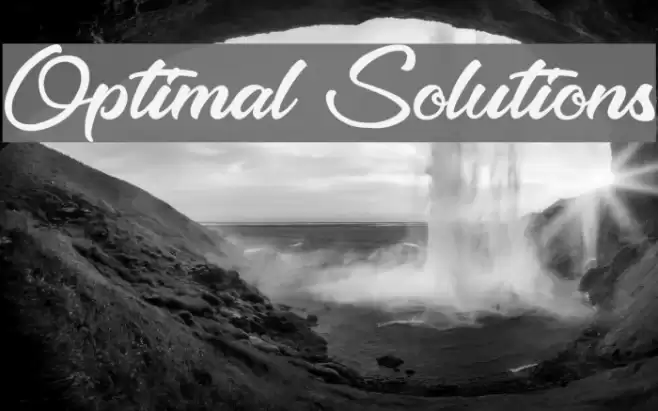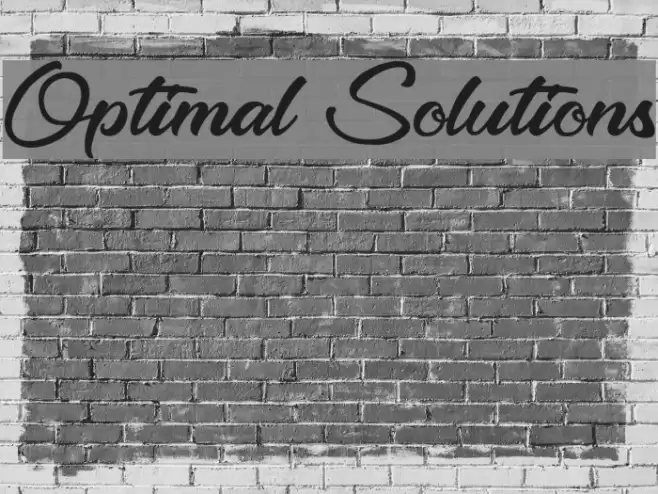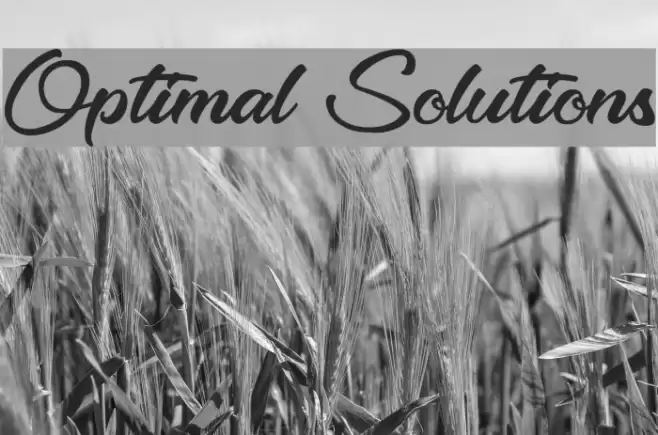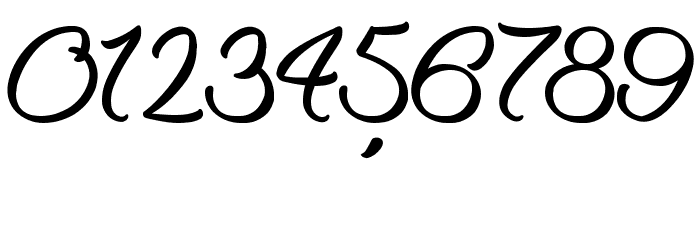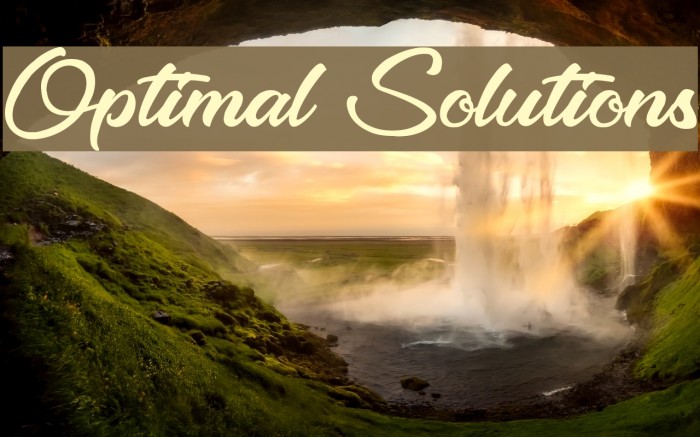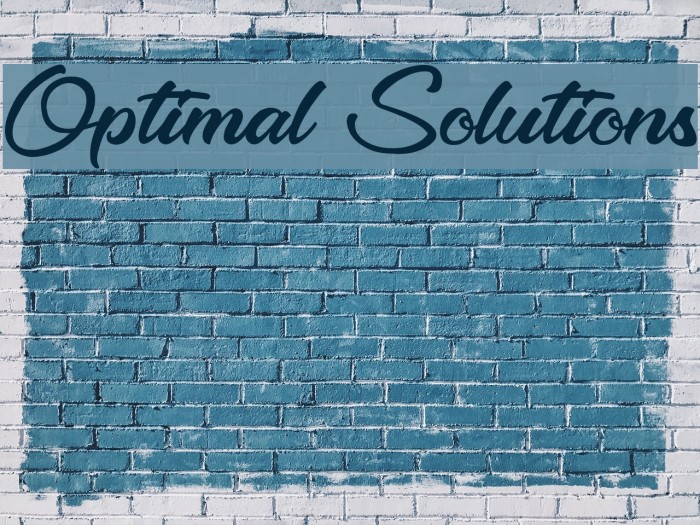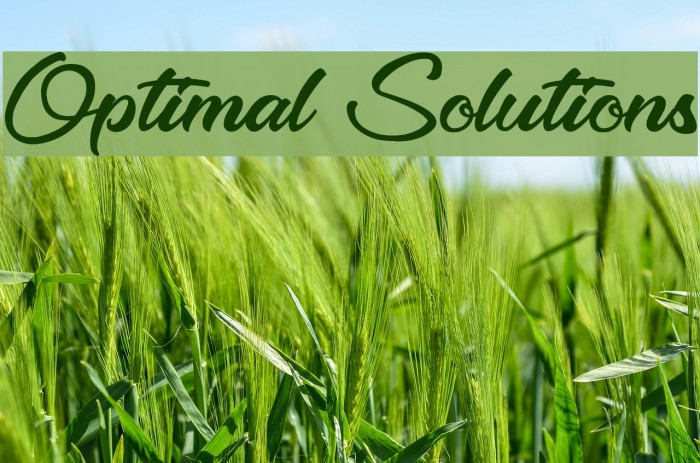
Optimal Solutions Font
Optimal Solutions Description
This elegant script font features a flowing, cursive style with smooth, connected strokes that give it a graceful and sophisticated appearance. The uppercase letters are slightly more ornate, with decorative flourishes that enhance their visual appeal. The lowercase letters maintain a consistent flow, making them ideal for creating a harmonious text block. The numerals are designed to match the overall style, with curved lines that maintain the font's fluidity. This font is perfect for projects that require a touch of elegance and sophistication, such as wedding invitations, formal event programs, or upscale branding materials.
A graceful script font with flowing, connected strokes and decorative flourishes from Uncategorized fonts.
- Proposed Projects: Ideal for wedding invitations, formal event programs, upscale branding, and elegant stationery.
- Overall Style: Elegant
- Use Case: Invitations, Branding, Stationery